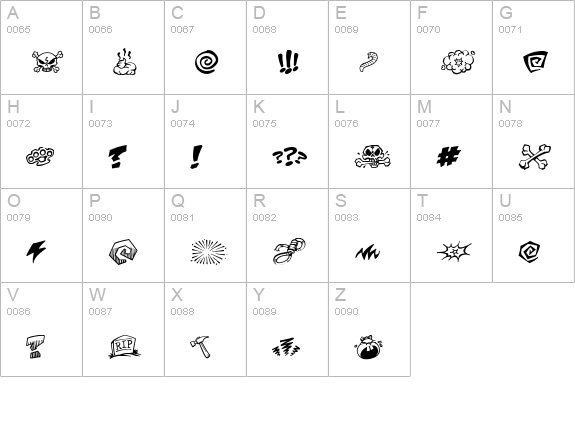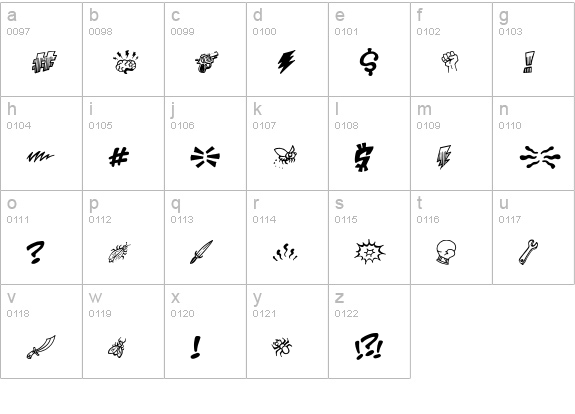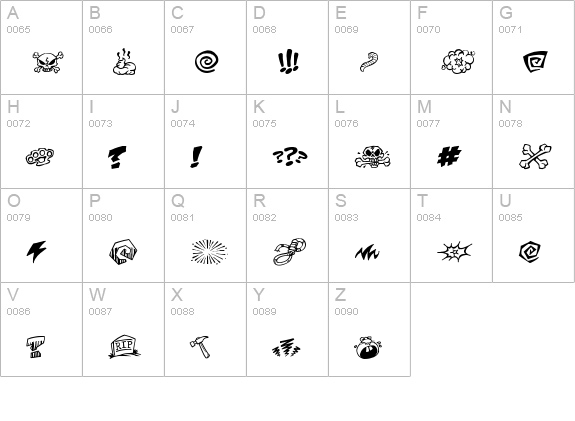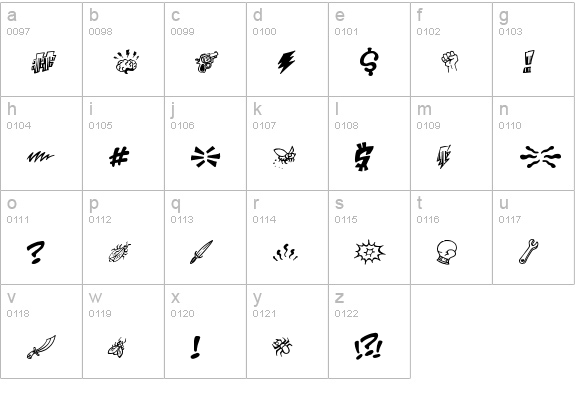
PottyMouth BB Font Details
PottyMouth BB font is a quirky and playful typeface that adds a touch of fun and humor to any design project. With its unique hand-drawn style and irregular shapes, this font exudes a sense of creativity and originality. Perfect for creating eye-catching headlines, posters, or social media graphics, PottyMouth BB font is sure to make your text stand out from the crowd. The best part? PottyMouth BB font is completely free to download at FontsMarket.com. Whether you're a professional designer looking to add a bit of whimsy to your work, or just someone who loves experimenting with different fonts, PottyMouth BB is a fantastic choice. Download it today and let your creativity run wild!